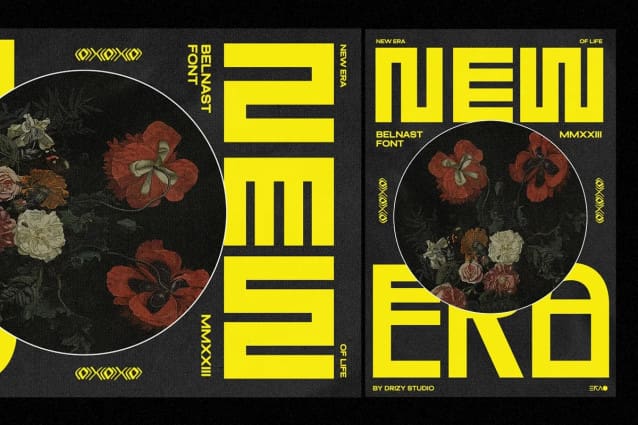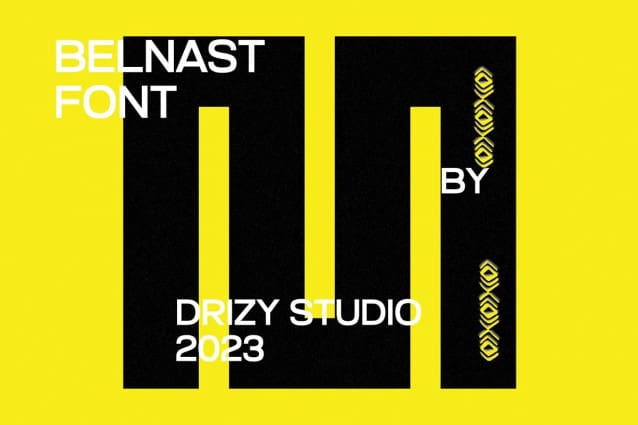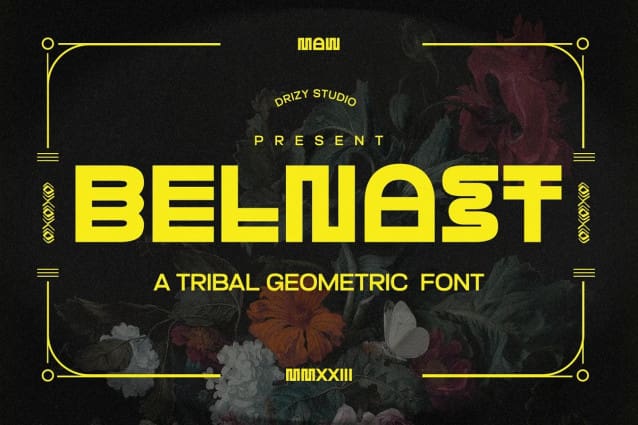
Belnast Font
Belnast Font – Tribal Geometric Font Belnast is a sans serif tribal font from Drizy Studio. Offering all the basic styles you will need for a tribal geometric project theme.